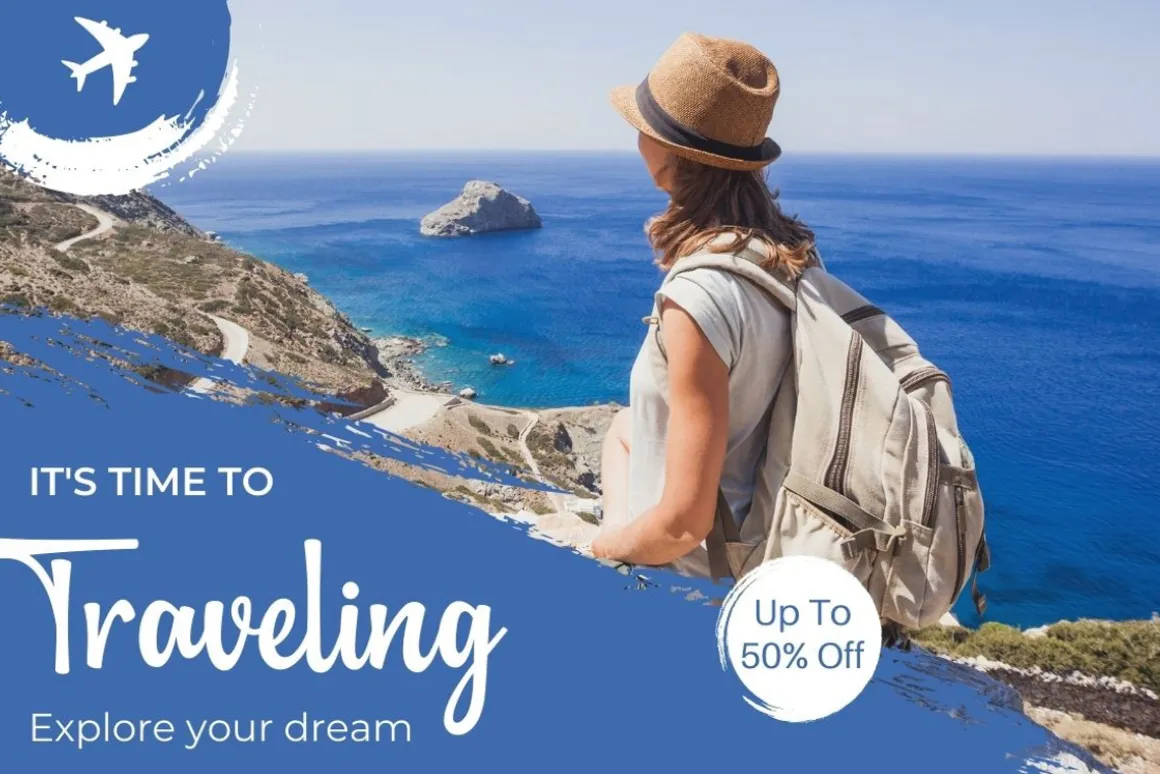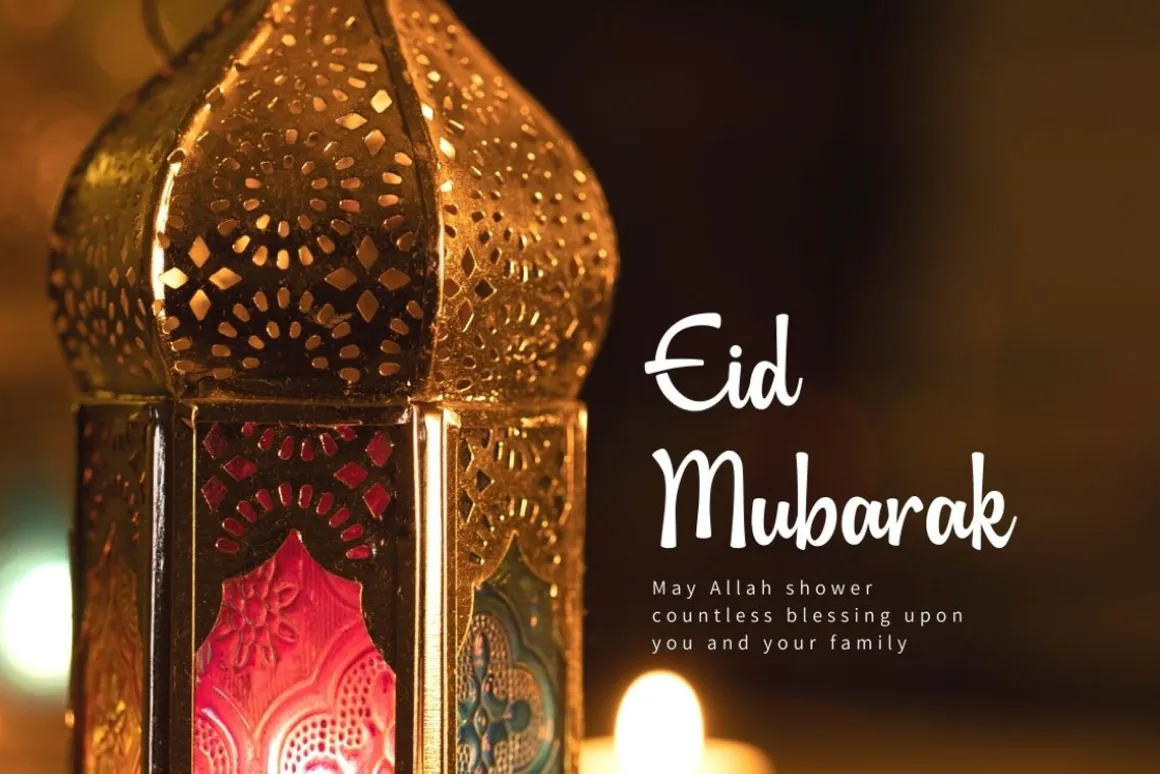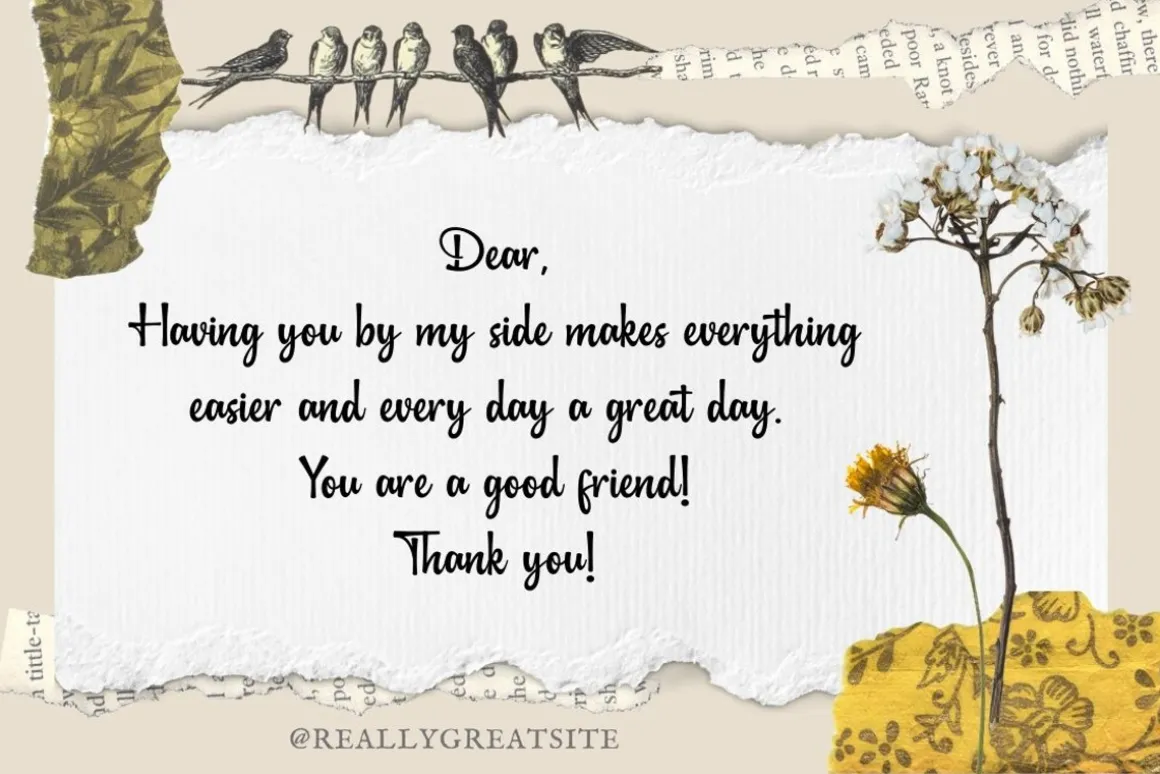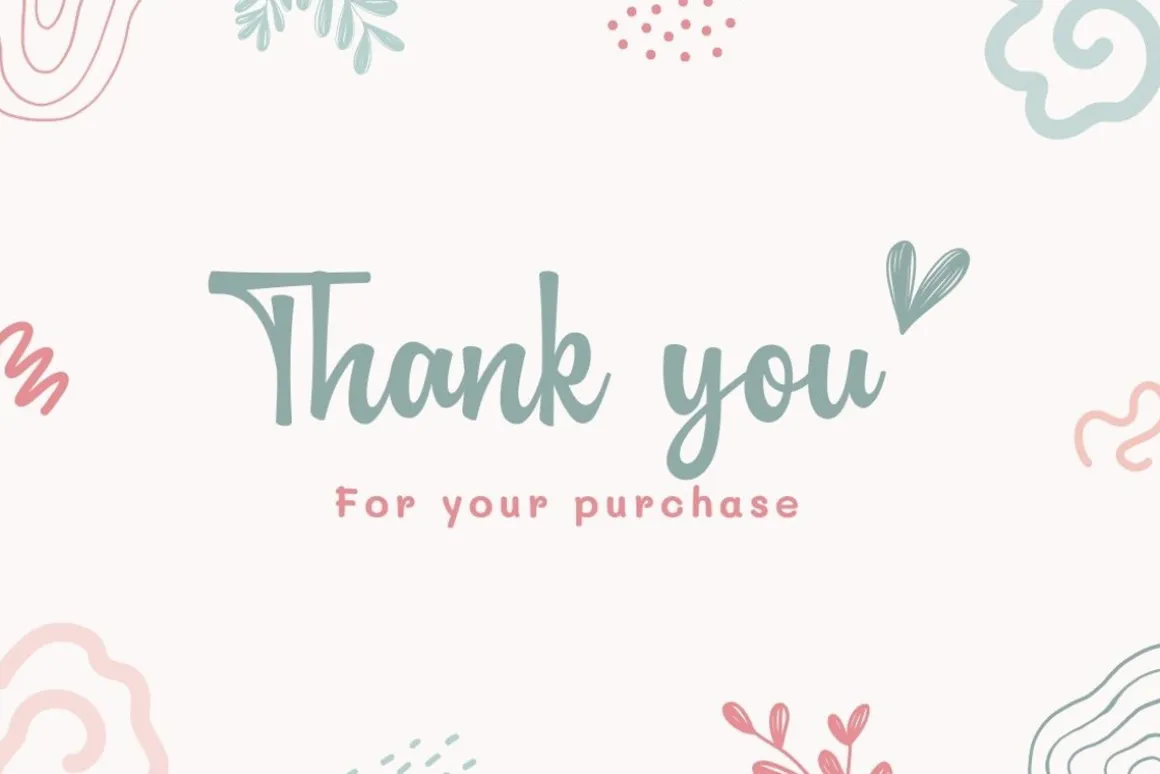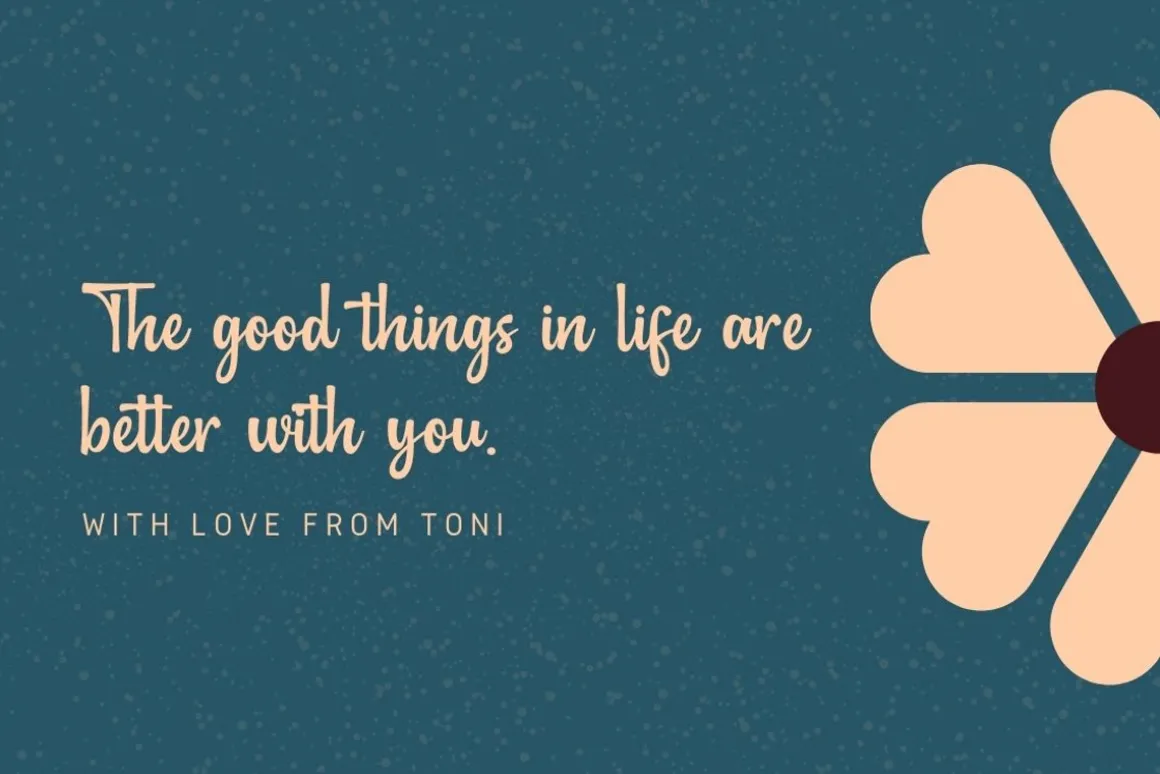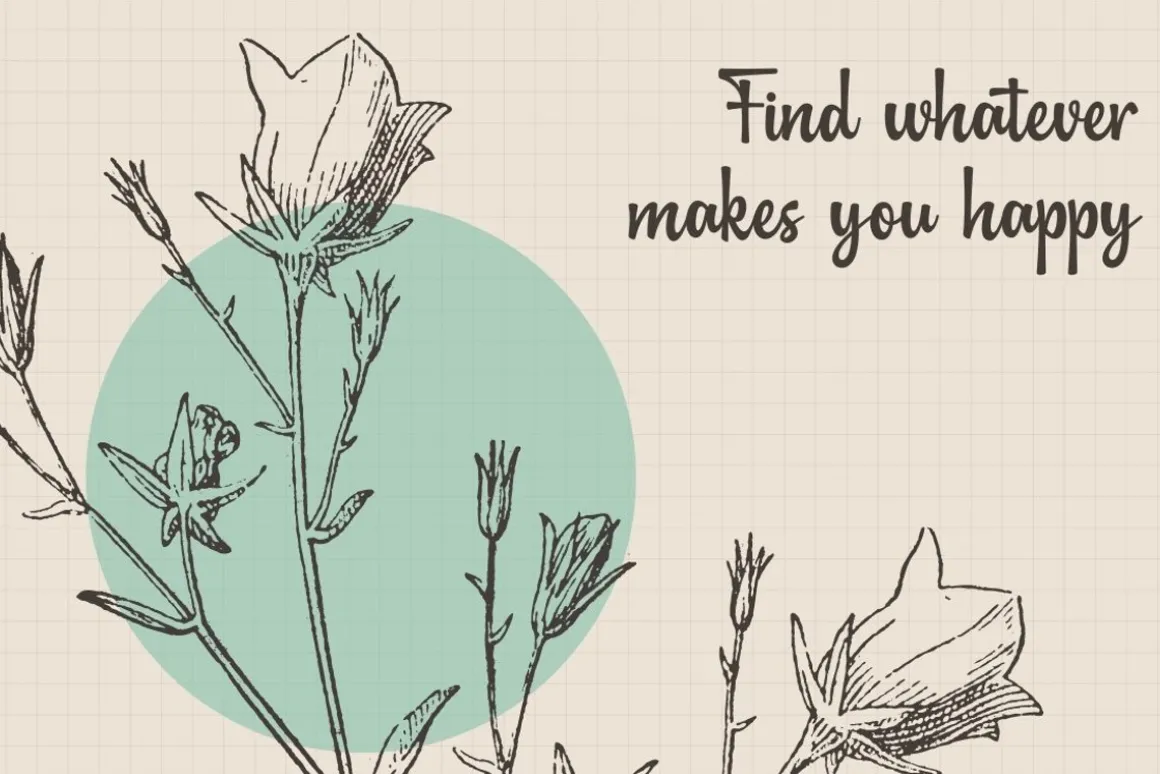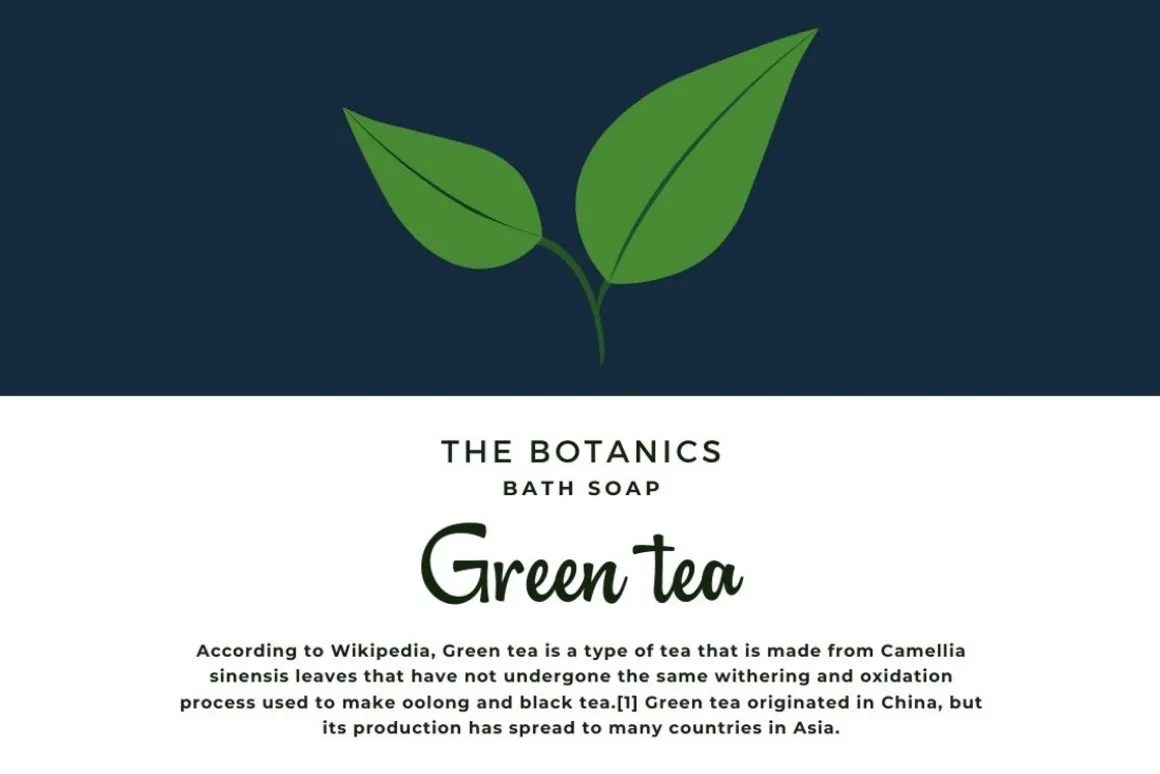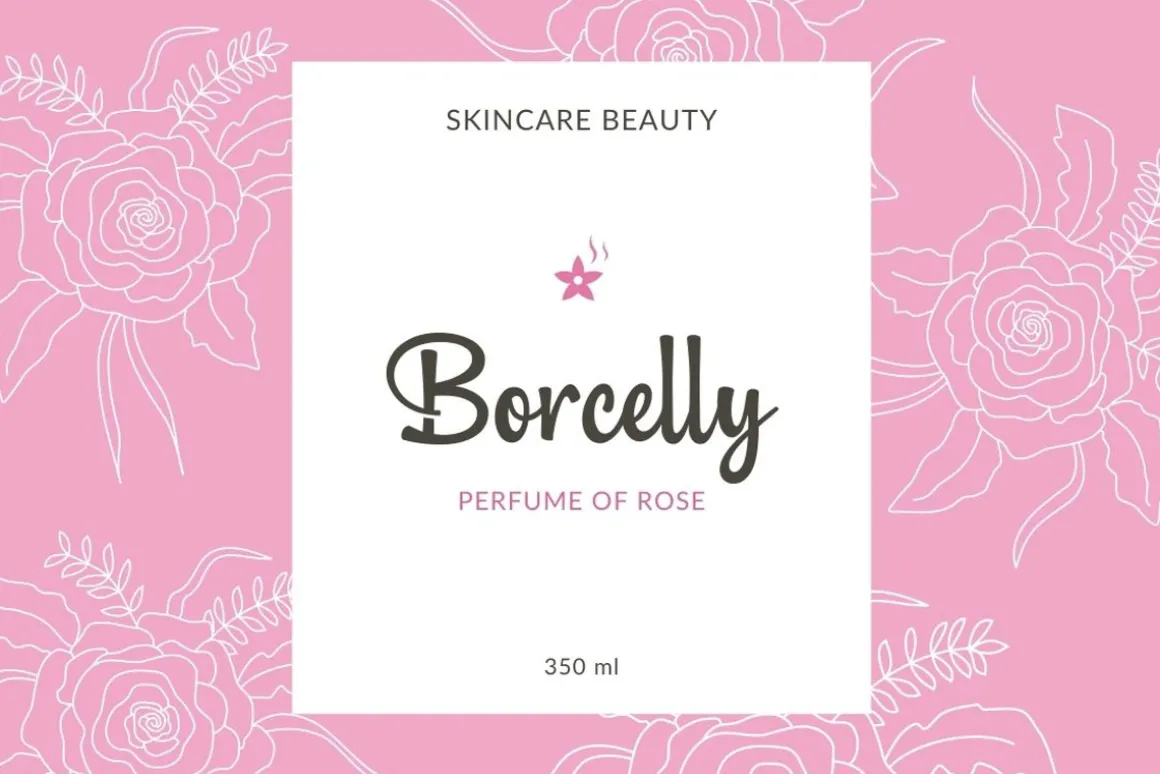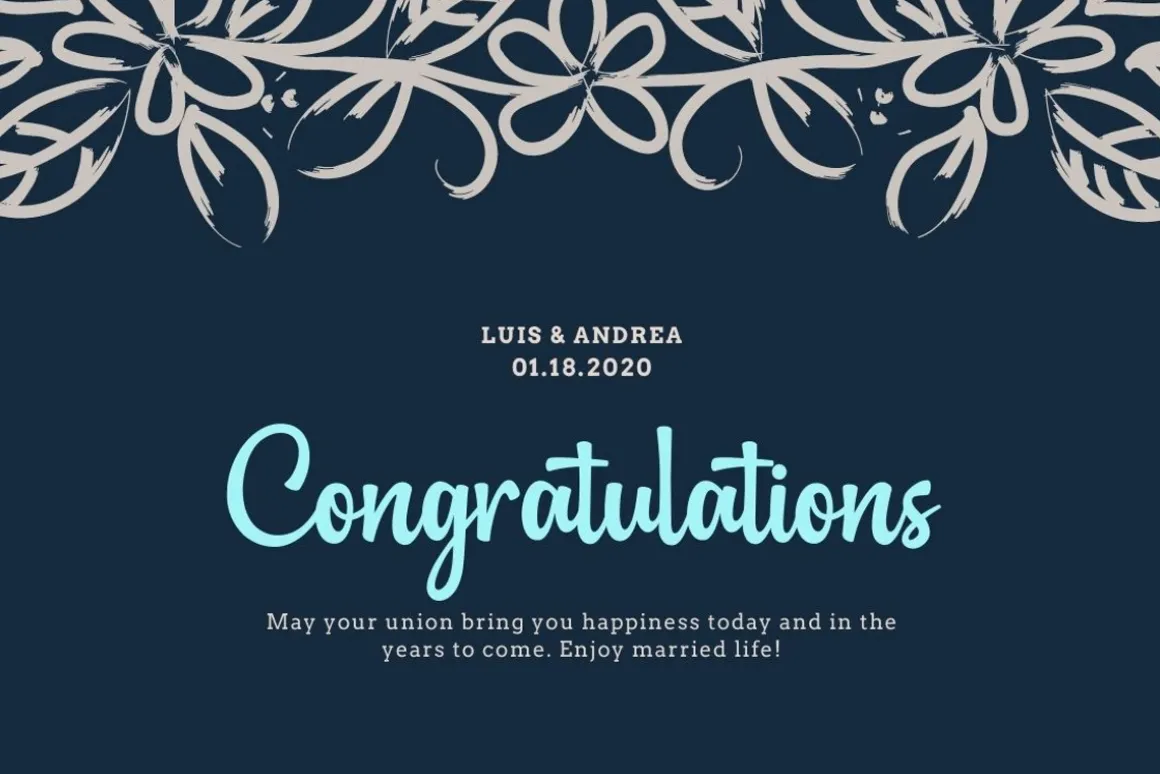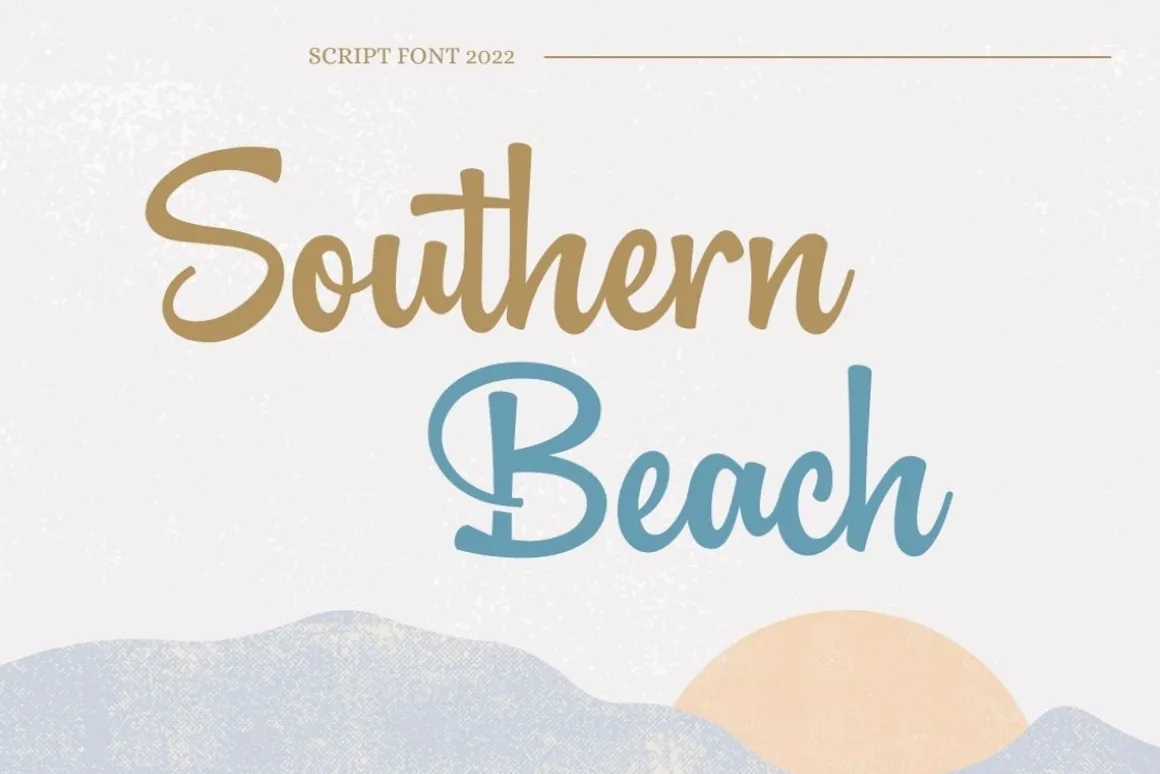
Southern Beach – Script Font, this font is perfect for branding, invitation, stationery, wedding designs, social media posts, advertisements, product packaging, product designs, label, photography, watermark, special events, and more.
Features:
- Uppercase and lowercase letters
- Multilingual, numerals, and punctuation